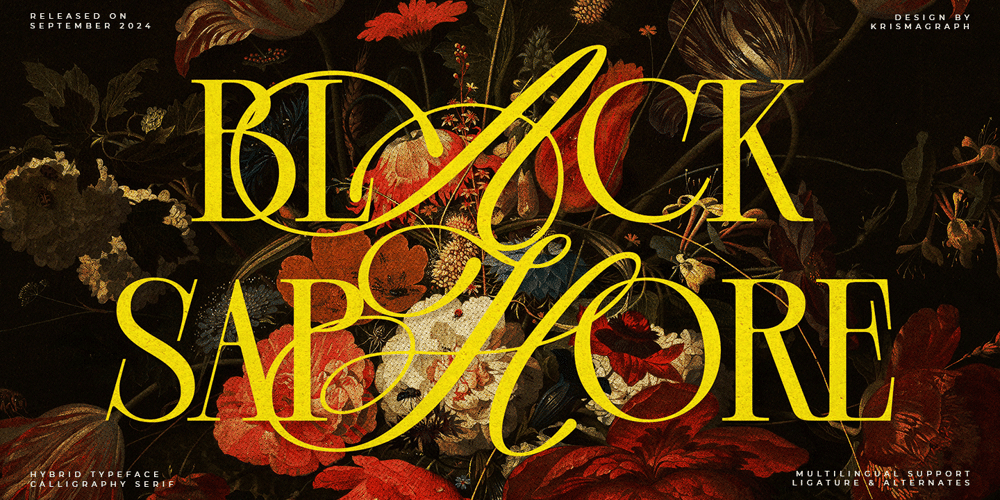
Black Saphore Font Family was designed by Ratna Krismawati and published by Krismagraph. Black Saphore contains 1 styles and family package options. Black Saphore is a captivating blend of calligraphy and serif, radiating timeless elegance and a nostalgic charm that elevates any design. This distinctive fusion brings a layer of sophistication to every project, making it an ideal choice for branding, editorial layouts, and social media visuals. With its versatile aesthetic, Black Saphore enriches your design toolkit, offering endless creative possibilities for a refined and polished finish.To fully use the wide variety of standard ligatures (custom connected letters) in this font, you just need any software that supports OpenType fonts.